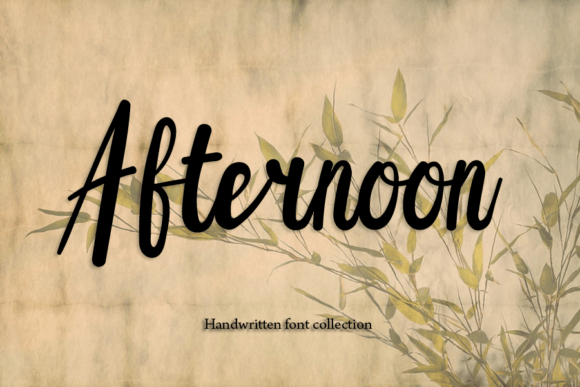
Introducing Afternoon Font, an exquisite script font that captivates with its elegant curves and timeless beauty. This enchanting handwritten font is a masterpiece crafted by Alfa Studio, renowned for their artistry in typography.
Embark on a journey through the world of captivating typography with Afternoon Font. Designed to evoke a sense of nostalgia and charm, this versatile typeface adds a touch of sophistication to any project. Whether you're creating eye-catching logos, stunning wedding invitations, or heartfelt greeting cards, Afternoon Font is your perfect companion.
Unleash your creativity and explore the endless possibilities that Afternoon Font offers. Its meticulously crafted glyphs, ligatures, and alternates provide endless opportunities for customization, allowing you to create truly unique designs that leave a lasting impression.
Indulge in the luxury of crafting designs that exude elegance and charm. From delicate branding elements to captivating social media posts, Afternoon Font transforms ordinary words into captivating works of art. Prepare to be mesmerized as your designs take on a new level of refinement and sophistication.